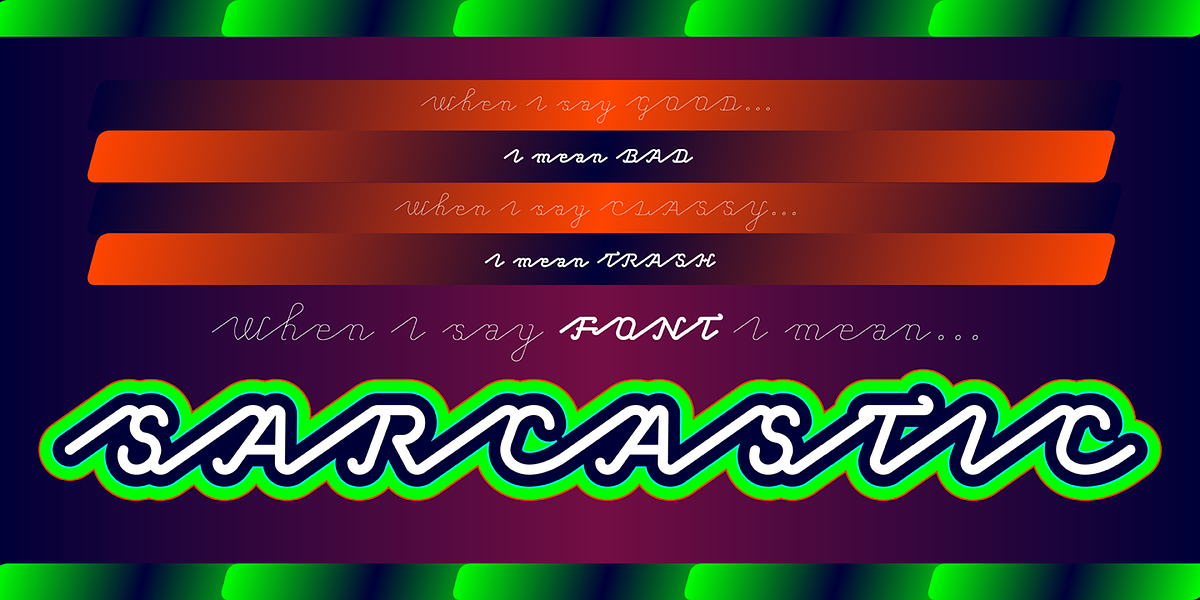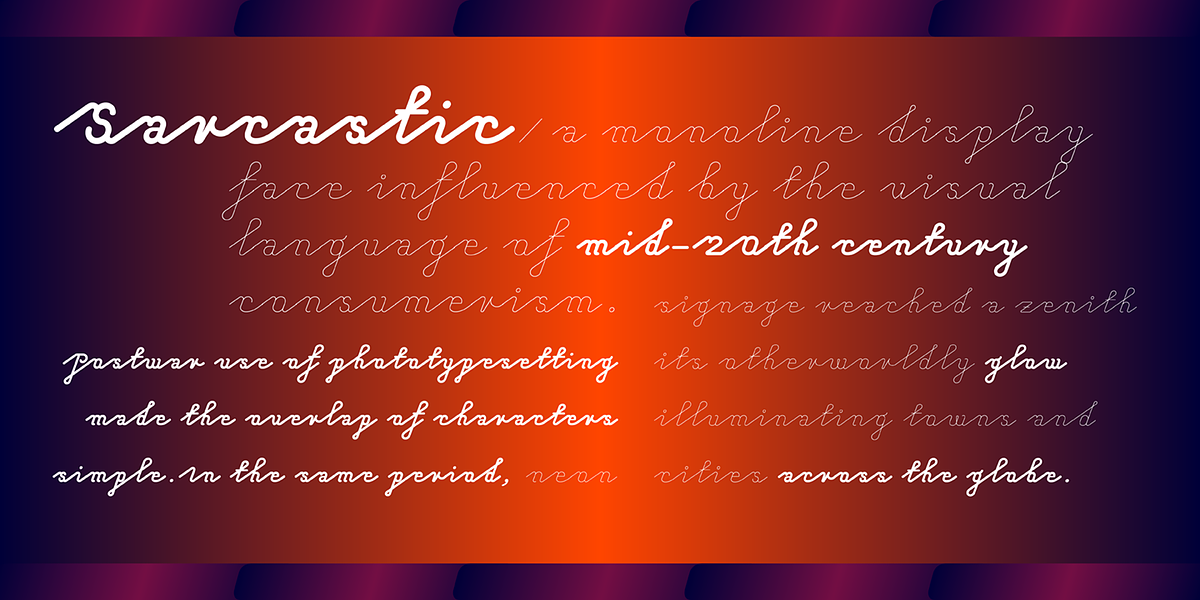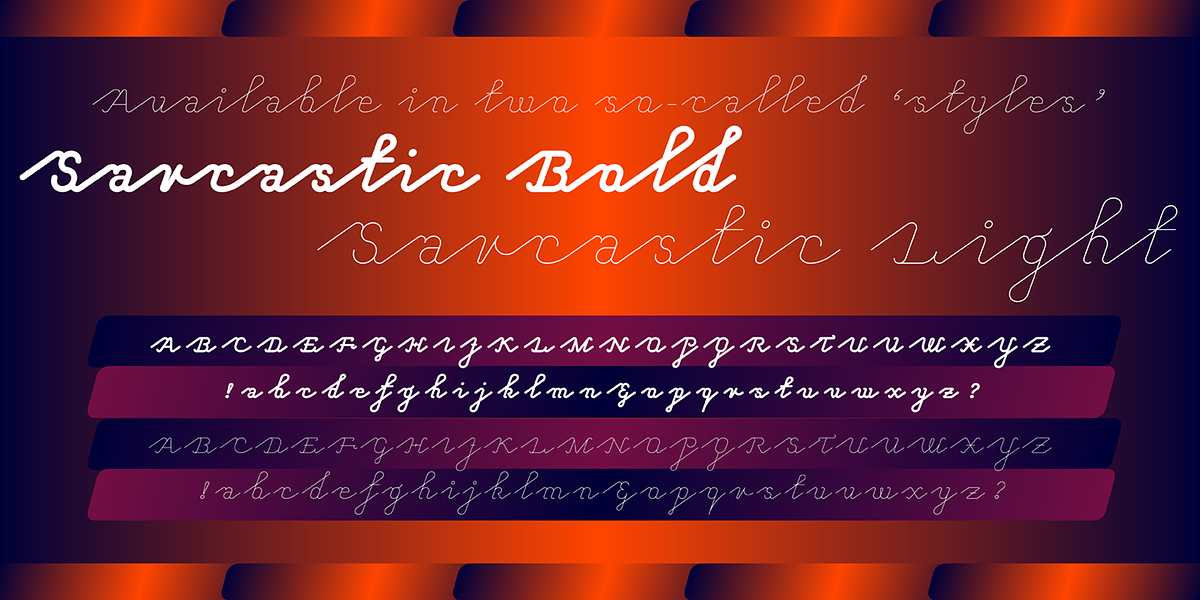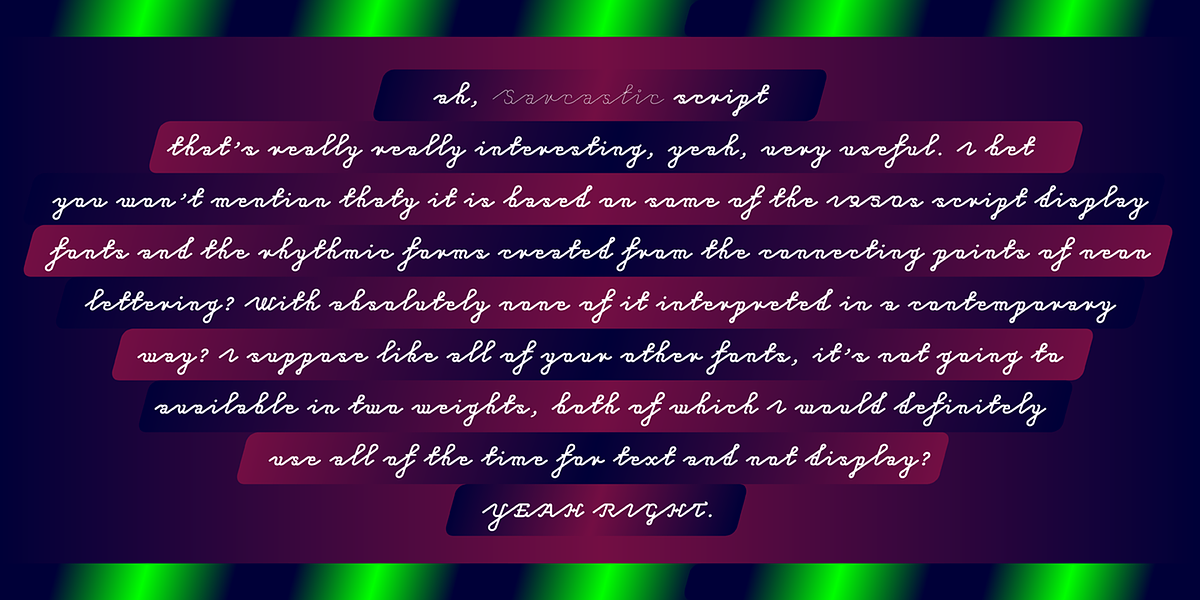
Sarcastic
Sarcastic is a monoline script typeface inspired by the visual language of mid-20th century consumerism. It draws influence from 1950s script typography and the rhythmic forms of interconnected neon lettering. The font's casual and playful personality makes it well-suited for branding and display applications.